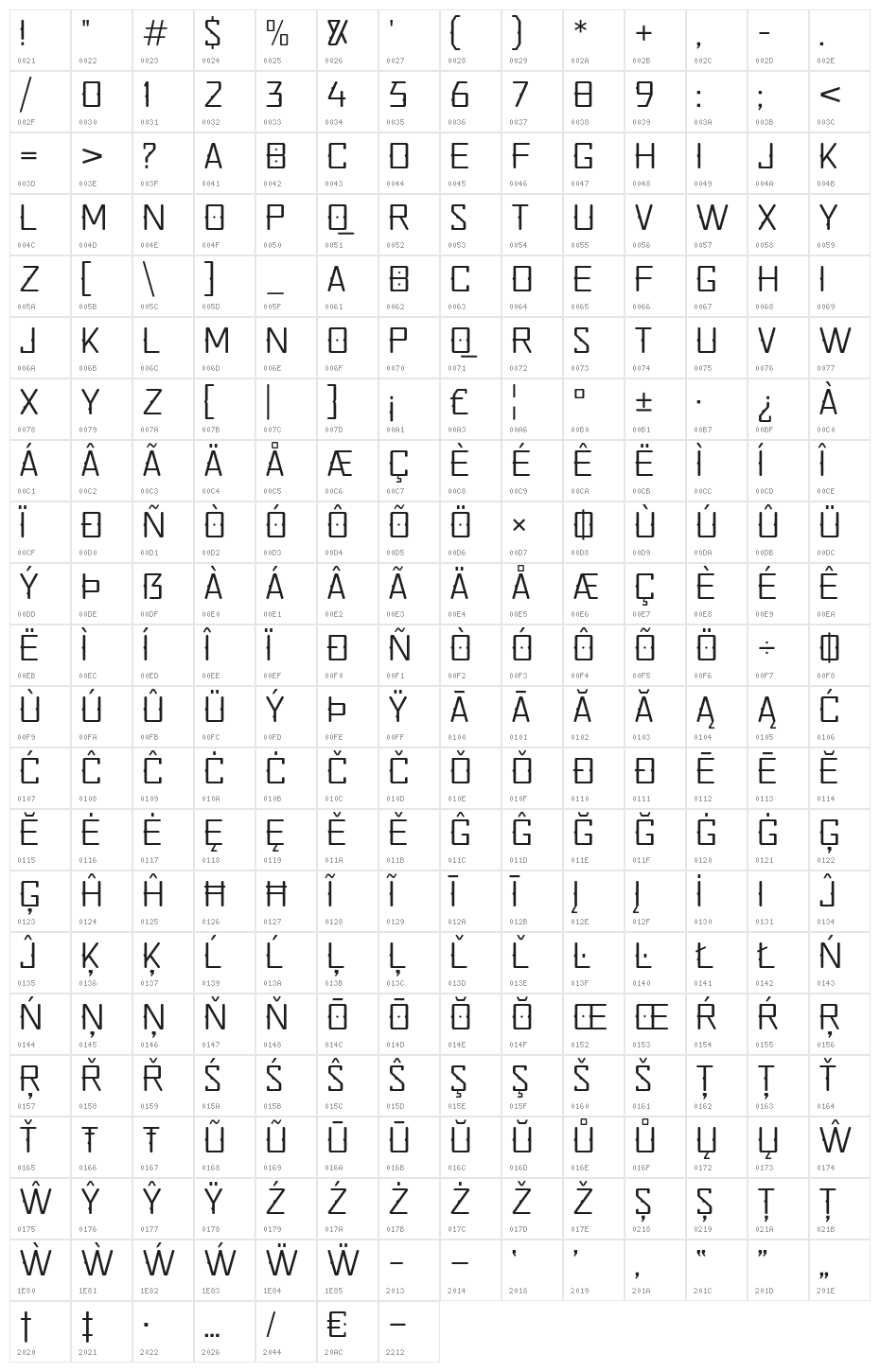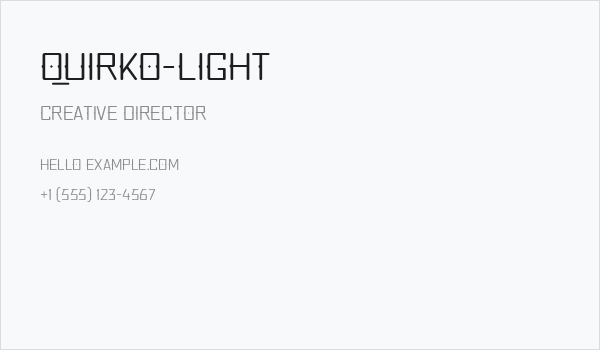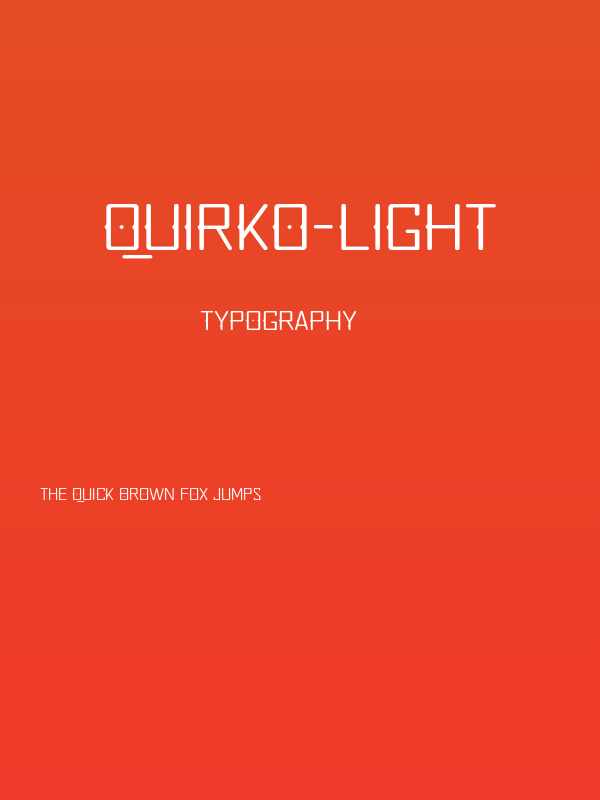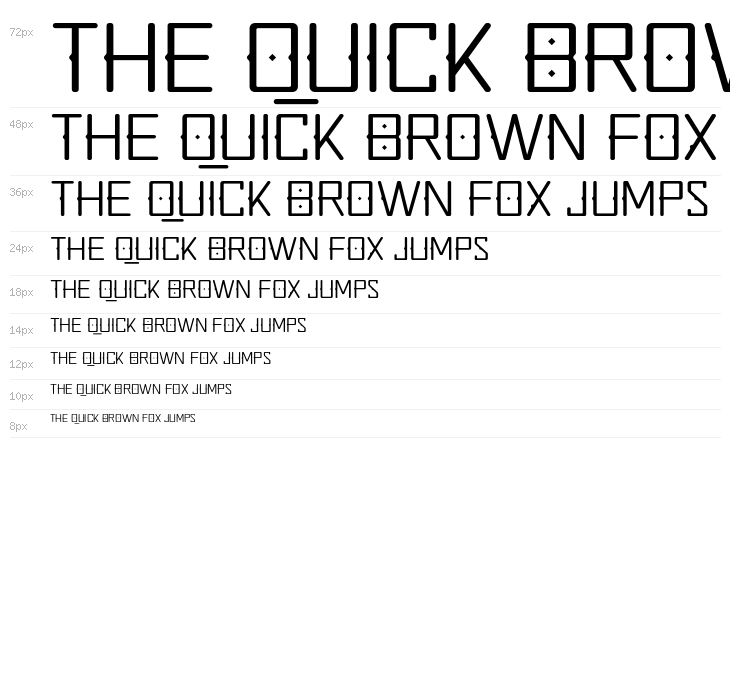
Quirko-Light Font
Quirko-Light Description
This font features a unique and modern design with a geometric and slightly futuristic aesthetic. The characters are constructed with a consistent line weight, giving it a clean and minimalistic appearance. The uppercase and lowercase letters share a similar structure, maintaining a cohesive look throughout. The numerals and special characters are designed to match the overall style, ensuring uniformity. The font's distinctiveness is highlighted by its angular shapes and the use of negative space, which adds an element of intrigue and sophistication. It's well-suited for projects that require a contemporary and edgy feel.
| Use Case | Headlines, Logos, Digital interfaces |
| Proposed Projects | Ideal for branding, digital interfaces, and modern print designs. |